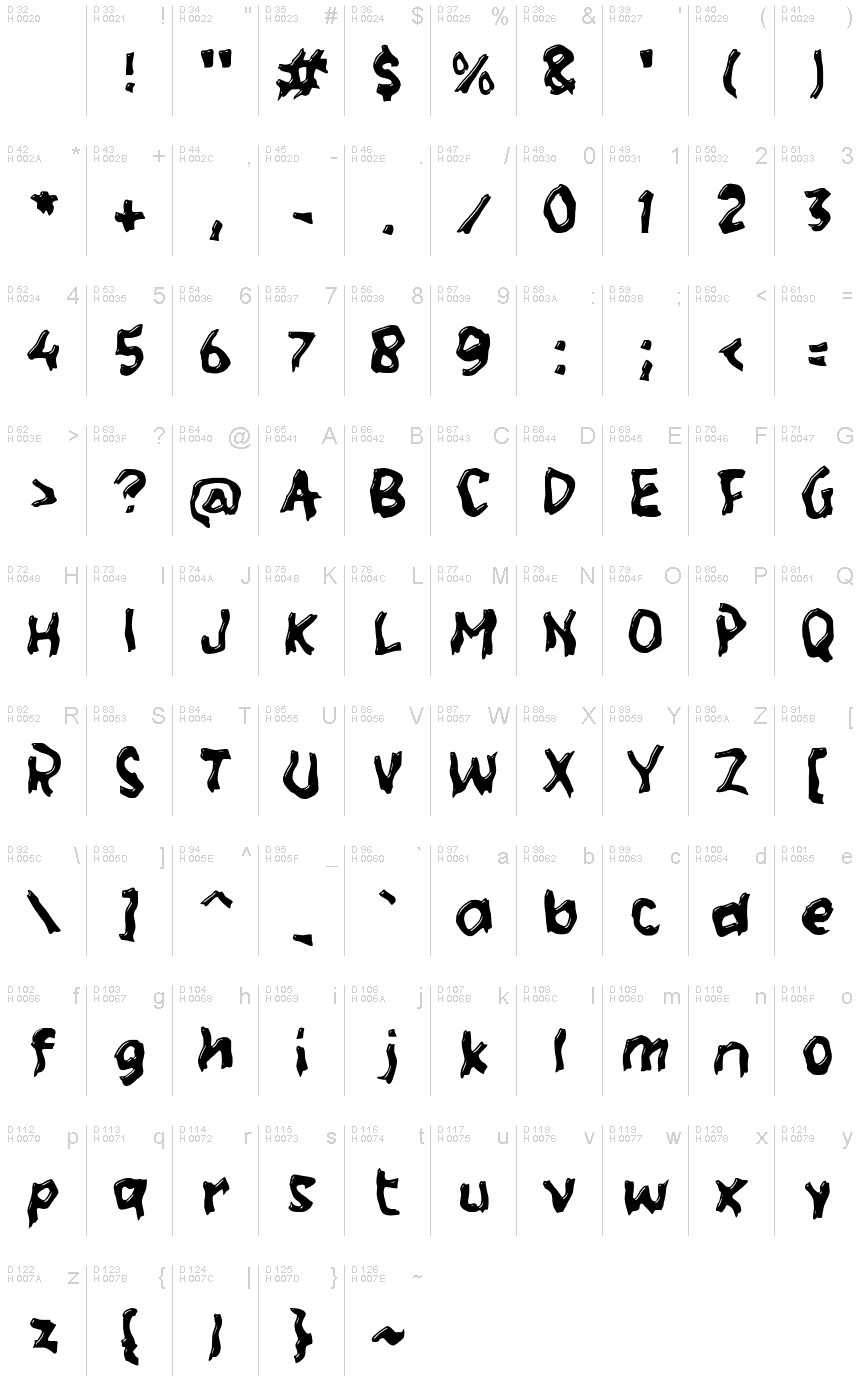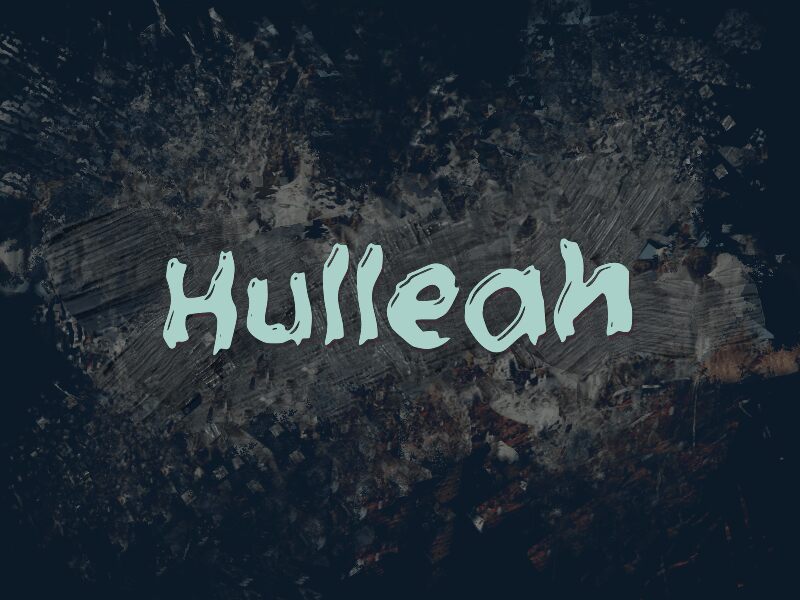
Hulleah
Hulleah, a haunting creation by wep, is a bold and distorted display font that will send shivers down your spine. With its eerie and twisted letterforms, this font is perfect for horror movie posters, Halloween party invitations, and gothic-themed designs.
Its menacing presence adds an element of fear and suspense to any project, making it ideal for haunted house flyers or spooky book covers. Hulleah's bold weight commands attention and ensures that your message will leave a lasting impression on the viewer.
Let Hulleah bring your dark imagination to life!